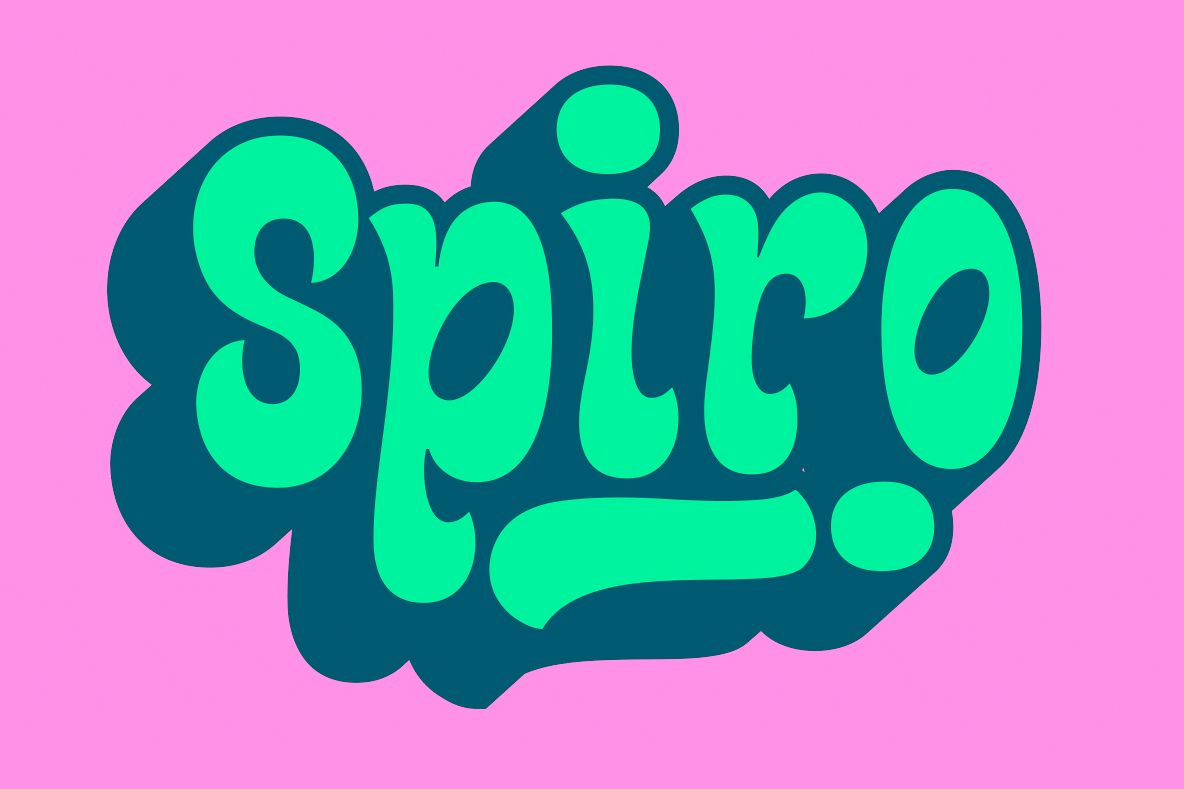
Spiro
Spiro Authors: Rodrigo Araya - Andrey Kudryavtsev Year: 2018 Concept:  Based on the retro, inspired by a series called "The Boatniks" this typeface has a lot to do with the Hippie, with the toys and series of the 60s -70 -80, this entertaining typography contains a set of shadows of Left and Right the same for Ornaments, this typography was designed with a lot of love, I hope you enjoy it, Thank you very much Thanks.